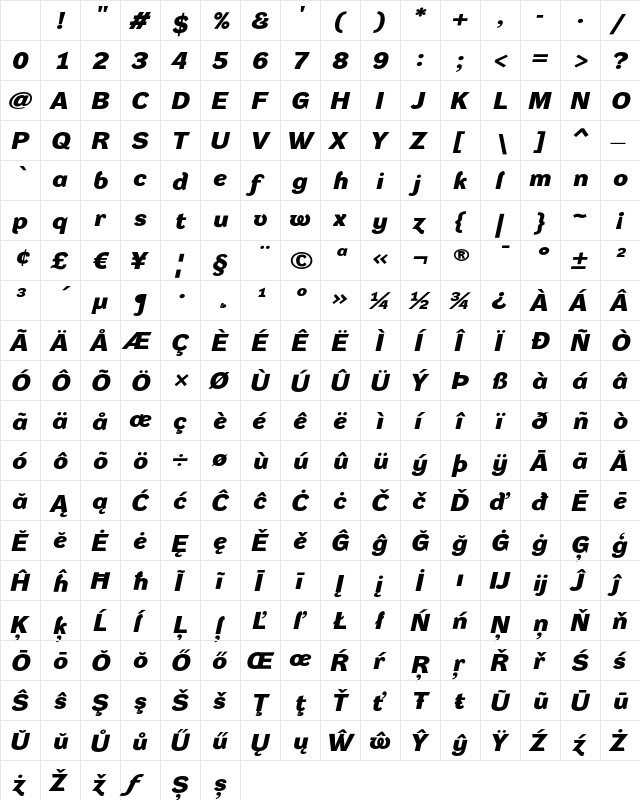
Complete DynaGrotesk DXE Bold Italic glyph index. Displaying only characters natively supported by DynaGrotesk DXE Bold Italic font.
DynaGrotesk DXE takes a clean, functional approach - its unadorned letterforms prioritise legibility and work reliably across screen and print environments. The slanted form adds forward momentum and visual energy. Its bold stroke weight gives it real presence on the page.
Font Pairing: Use DynaGrotesk DXE for headlines alongside a lighter-weight sans or serif for body copy to establish clear visual hierarchy.
Pro Tip: Use DynaGrotesk DXE for UI labels, navigation, and short-form body copy where clean legibility is the priority.